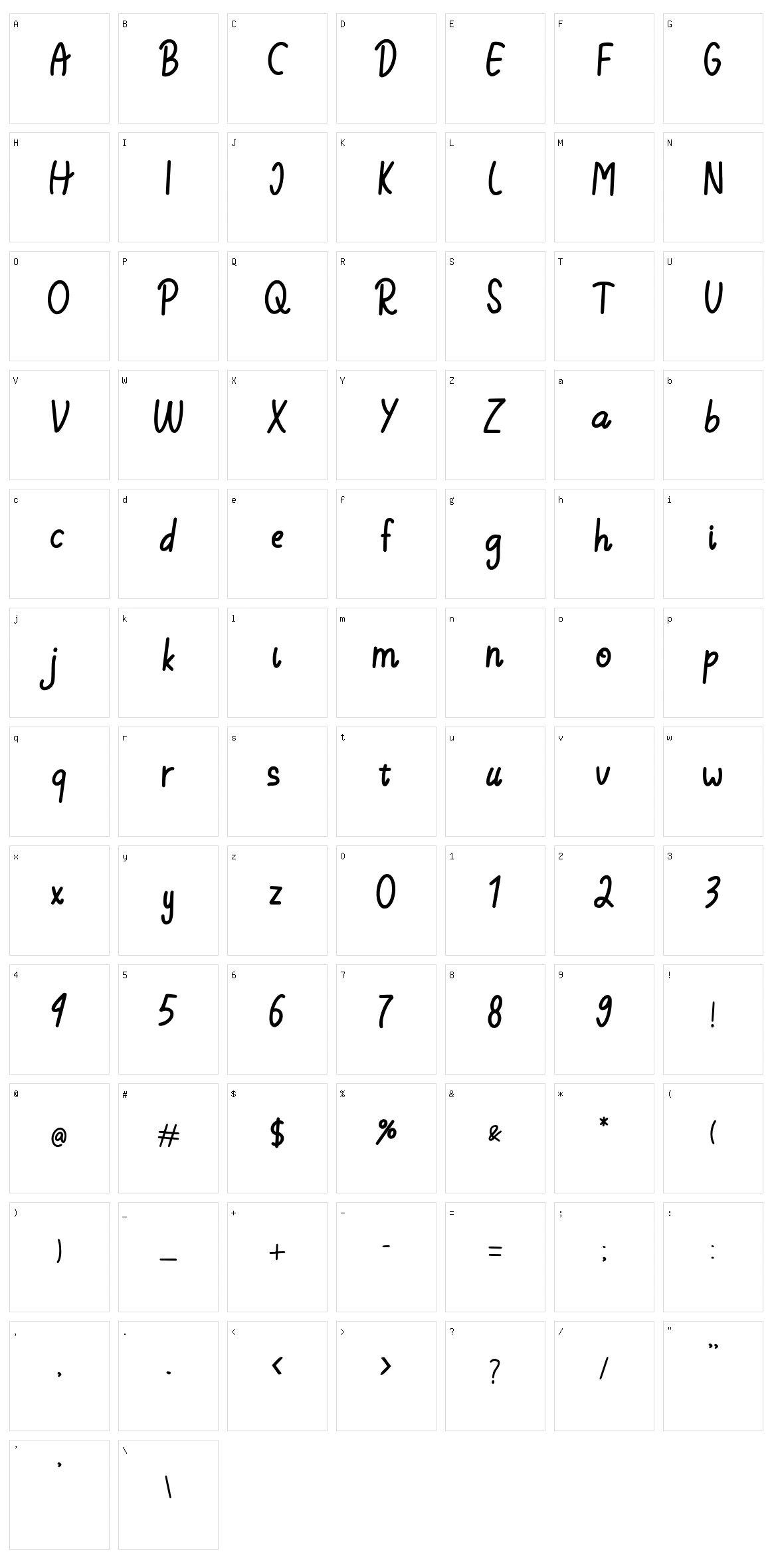
The free font Stay Hungry is carefully designed by SpoonSummer, showcasing a thoughtful balance of creativity and usability and falls under the Script font style. When you download the ZIP file, it contains only 16.52 KB of font files, making it lightweight and quick to download. Please review the license details below to understand permitted usage and distribution rights. If license information is not available, we recommend using this font for personal projects only or contacting the author directly for commercial usage permissions.